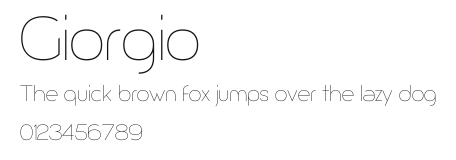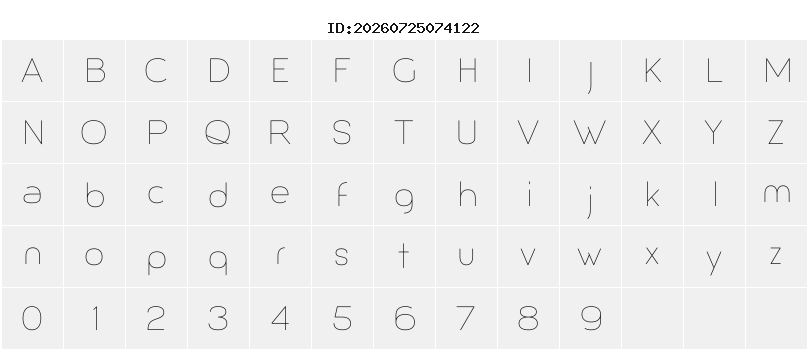
Giorgio Preview
• Font Name: Giorgio
• Font Style: Thin
• Full Font Name: Giorgio Thin
About Giorgio.ttf
Giorgio.ttf is a modern, elegant sans-serif font designed for ultimate readability and visual harmony. Perfect for branding, headlines, web design, and print materials.